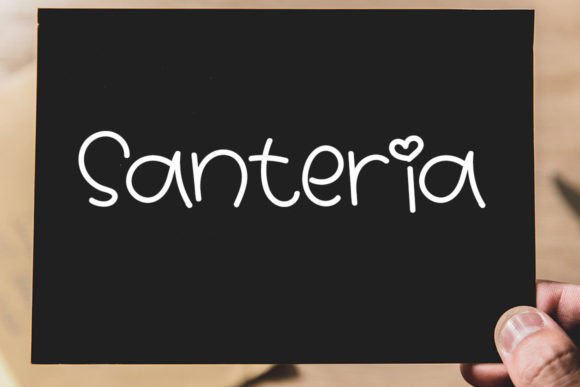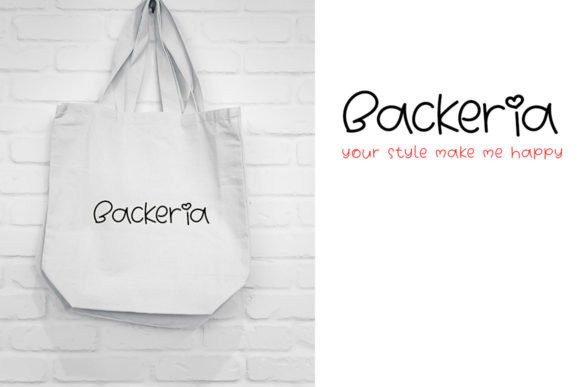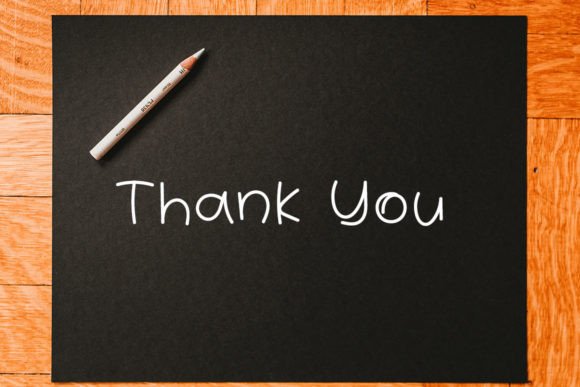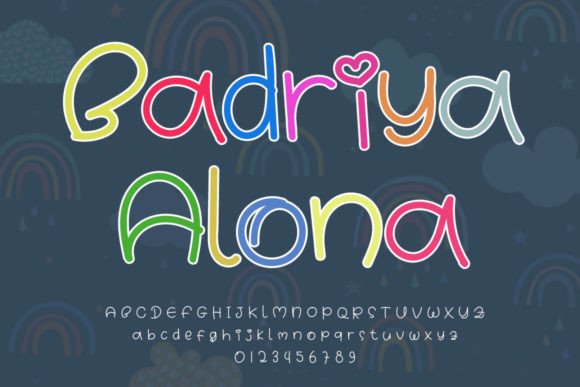
Discover the Charm of Badriya Alona Font: Elevate Your Designs with Elegance and Joy
In the world of design, fonts play a pivotal role in conveying messages, evoking emotions, and creating lasting impressions. Among the myriad of fonts available, Badriya Alona stands out as a beacon of elegance and freshness. This beautiful and sweet font is not just a typographic choice; it’s an experience that can transform your projects, whether formal or informal, with its clean, elegant lines and joyful touch.
The Essence of Badriya Alona Font
Badriya Alona is more than just a font; it’s a design statement. Its fresh and clean appearance makes it an ideal choice for designers and crafters looking to infuse their work with a sense of modernity and sophistication. The elegance of Badriya Alona lies in its simplicity and versatility, allowing it to seamlessly blend into various design contexts, from wedding invitations and branding materials to blog posts and digital media.
Why Choose Badriya Alona for Your Projects?
- Versatility: Badriya Alona’s design ensures it can be used across a wide range of projects. Whether you’re working on a formal business proposal or an informal social media post, this font adapts beautifully, maintaining its elegance and charm.
- Emotional Connection: Fonts have the power to evoke emotions, and Badriya Alona is no exception. Its sweet and joyful characteristics can add a warm, inviting feel to your designs, making them more engaging and relatable to your audience.
- Ease of Use: Designed with simplicity in mind, Badriya Alona is easy to integrate into your projects. It simplifies the design process, allowing you to focus on creativity rather than getting bogged down in typographic complexities.
- Enhanced Aesthetic Appeal: Incorporating Badriya Alona into your designs instantly elevates their aesthetic appeal. Its elegant lines and fresh appearance ensure your work stands out in a crowded digital landscape.
Impact on Business and Branding
For businesses, the choice of font can significantly impact branding and customer perception. Badriya Alona offers a unique opportunity to beautify your business’s visual identity. By incorporating this font into your branding materials, website, and marketing collateral, you can create a cohesive and sophisticated look that resonates with your target audience.
The use of Badriya Alona can help in:
- Building a strong brand identity that exudes elegance and professionalism.
- Creating a memorable visual experience for customers, enhancing brand recall.
- Differentiating your brand in a competitive market with a unique typographic style.
To make the most of Badriya Alona, consider the following tips:
- Pair it Wisely: While Badriya Alona is stunning on its own, pairing it with complementary fonts can create a dynamic and visually appealing design.
- Play with Sizes: Experiment with different font sizes to create hierarchy and emphasis in your designs.
- Consider Color: The right color choice can enhance the beauty of Badriya Alona. Choose colors that align with your brand’s palette or the mood you’re trying to convey.
Badriya Alona is more than just a font; it’s a design companion that can elevate your projects with its elegance, freshness, and joyful touch. Whether you’re a designer, crafter, or business owner looking to enhance your brand’s visual identity, Badriya Alona offers a world of creative possibilities. Embrace the charm of Badriya Alona and discover how it can transform your designs into beautiful, memorable experiences.